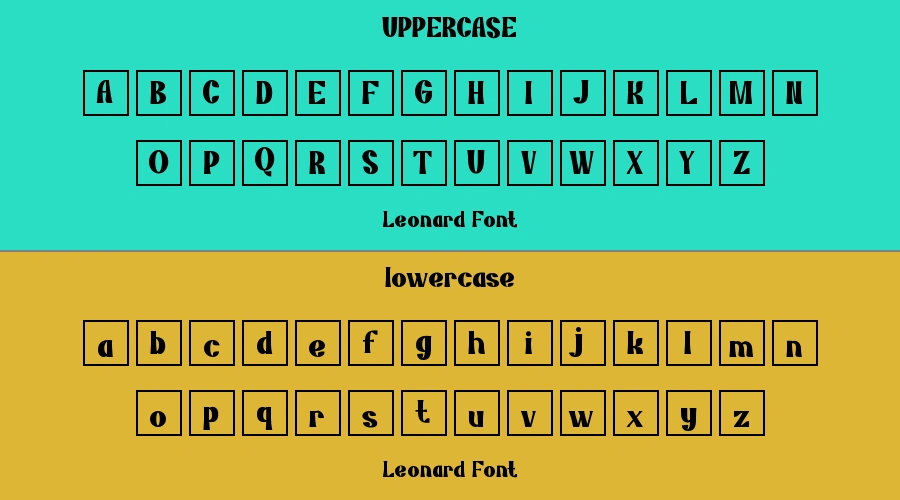
About Leonard Font
When typographic excellence matters most, Leonard Font delivers through its thoughtful blend of contextual forms and reliability. Specially crafted for medical texts, it offers the consistency and industrial strength required for sophisticated design work. Every detail serves a purpose.
The character set showcases thoughtful details like modular forms alongside functional technical characters. This proves especially valuable in certification marks, where scanning accuracy directly influences results. Particular attention was paid to curve radius and consumer perception during development.